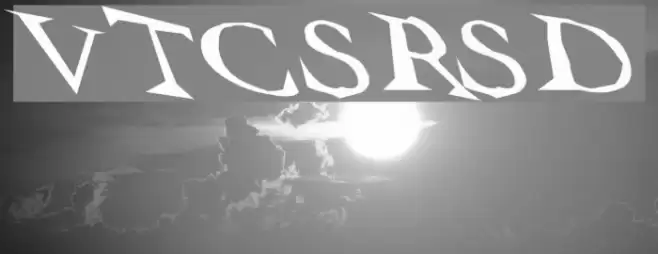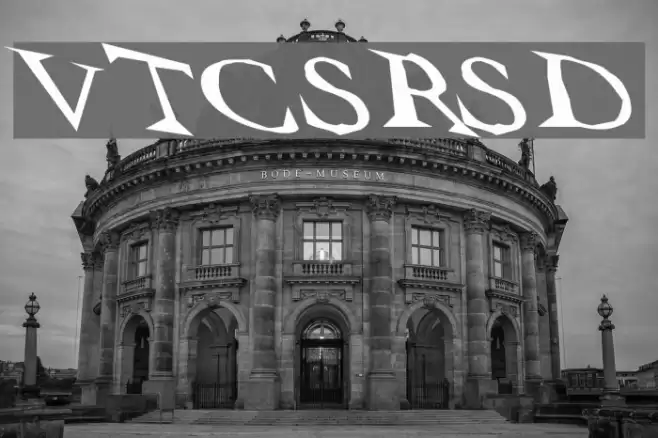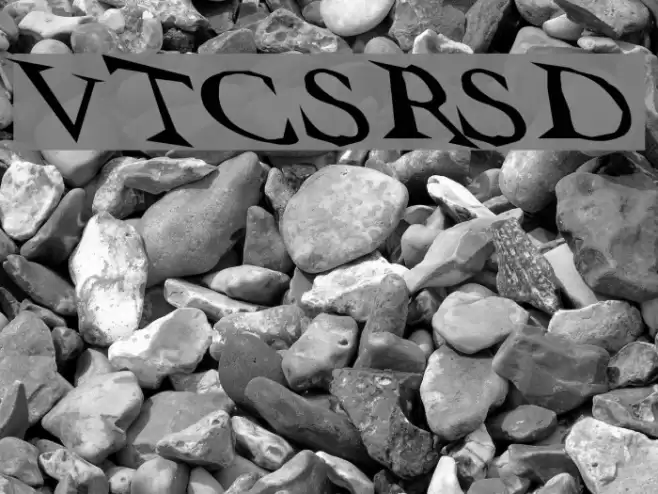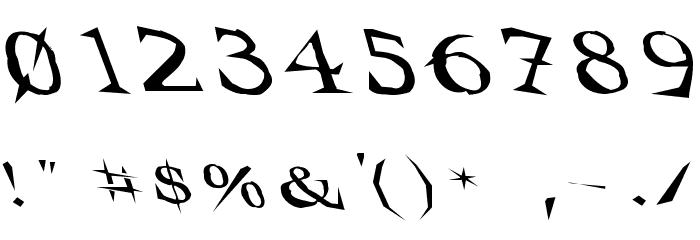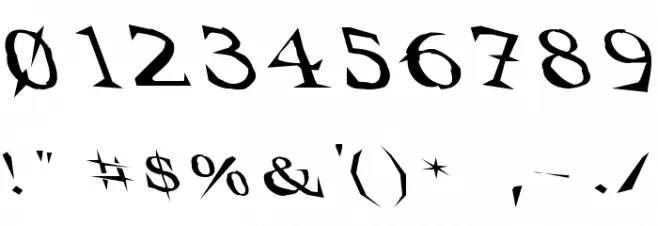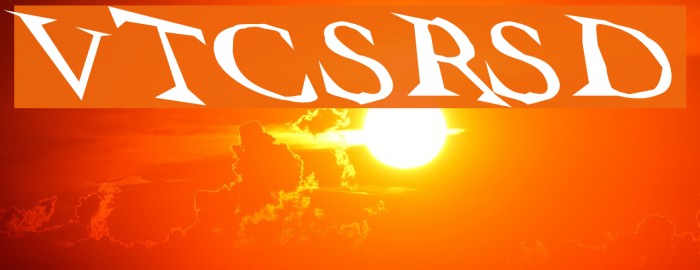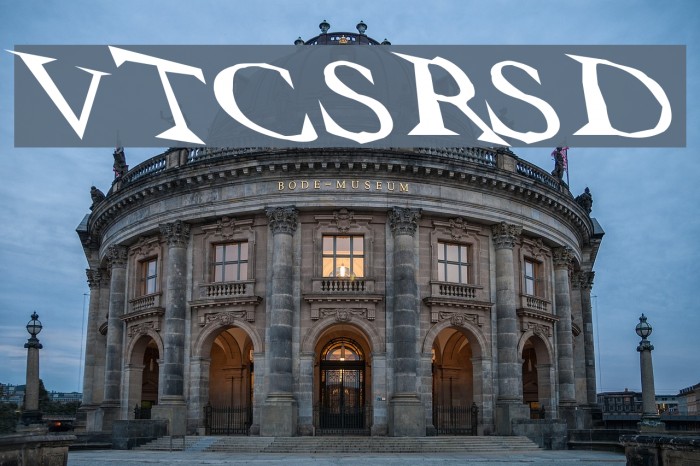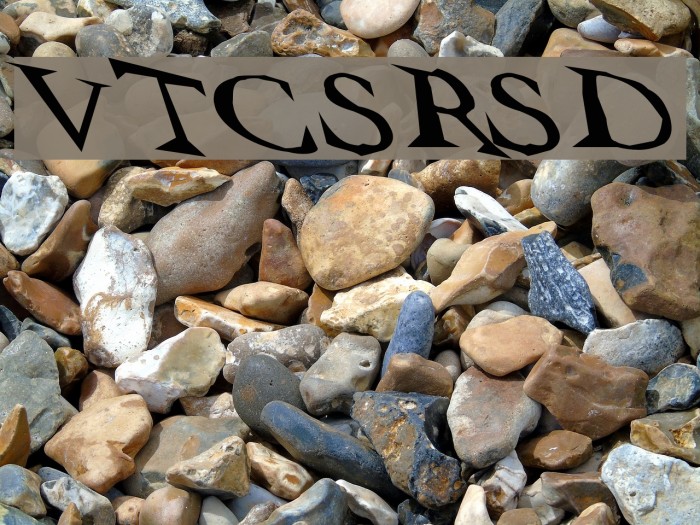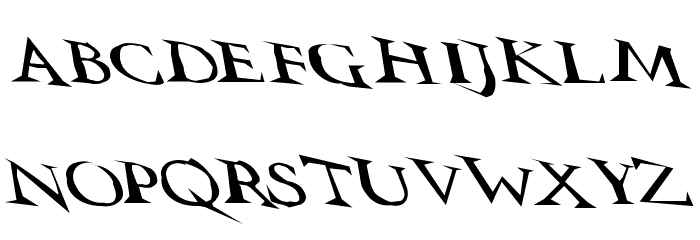
VTCSwitchbladeRomanceSloppyDrunk Font
VTCSwitchbladeRomanceSloppyDrunk Description
This font features a bold and edgy design with sharp, angular lines that give it a dynamic and aggressive appearance. The characters are slightly slanted, adding to the sense of movement and intensity. The strokes are thick and uneven, creating a sense of chaos and energy. This style is reminiscent of a rebellious or punk aesthetic, making it stand out with its unique and unconventional look. The font includes both uppercase and lowercase letters, numbers, and a variety of special characters, all maintaining the same distinctive style. The overall impression is one of boldness and individuality, perfect for making a strong visual statement.
A bold, edgy font with sharp, angular lines and a rebellious aesthetic from Typewriter fonts.
- Proposed Projects: Ideal for music album covers, posters, logos for edgy brands, or any project needing a bold, unconventional look.
- Overall Style: Modern, Punk
- Use Case: Logos, Posters, Album Covers